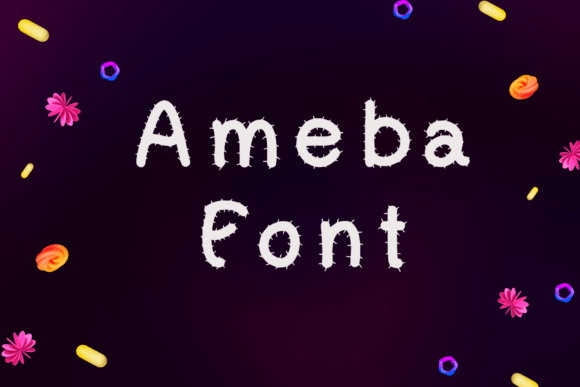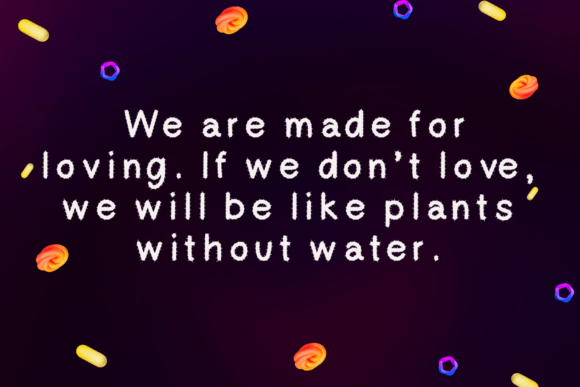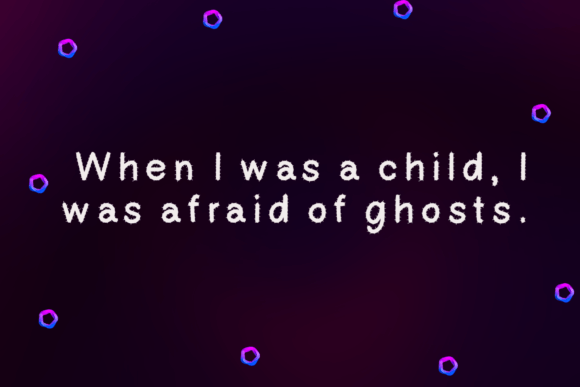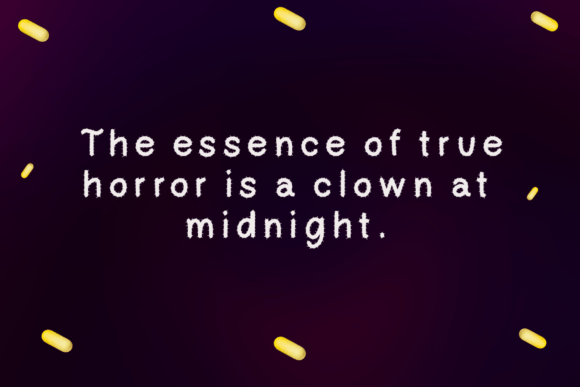
Ameba Font
About Ameba Font
The Ameba font presents a captivating blend of handwritten charm and decorative elements, reminiscent of spikes and the intriguing appearance of bacteria. This unique design makes it particularly well-suited for a range of creative content, adding a distinctive touch to various themes such as horror, Halloween, cactus, science, and beyond. Its versatility allows it to be seamlessly integrated into a multitude of creative projects, enhancing the visual appeal and thematic resonance.
In the realm of horror, Ameba font can evoke an eerie atmosphere, perfectly complementing spooky narratives and chilling visuals. The spikes and bacteria-like features contribute to a sense of otherworldliness, heightening the impact of horror-themed content and setting the tone for a suspenseful experience.
For Halloween-themed projects, Ameba font becomes a valuable asset. Its decorative elements can evoke the spirit of the season, adding a touch of playfulness to designs related to costumes, parties, and spooky celebrations. The font’s distinct appearance can enhance the overall aesthetic of Halloween-themed materials, making them visually engaging and memorable.
The association with cactus-themed content brings a unique twist to Ameba font. The spikes in its design can mimic the texture of cacti, making it a fitting choice for designs related to deserts, succulents, or southwestern aesthetics. This versatility allows Ameba font to adapt to a wide range of creative themes and visual styles.
In science-related projects, Ameba font’s bacteria-like appearance can add a whimsical yet informative touch. Whether used in educational materials or science-themed graphics, the font’s distinctive design contributes to a visually interesting and engaging representation of scientific concepts.
Ultimately, Ameba font proves to be a versatile and dynamic choice for creative projects across various themes. Its ability to seamlessly blend handwritten elements with decorative spikes and a bacteria-like look adds a layer of uniqueness to designs. By incorporating the Ameba font, creators have the opportunity to enhance the visual impact of their projects and evoke specific atmospheres, making it an invaluable tool for those seeking to infuse creativity into their work.